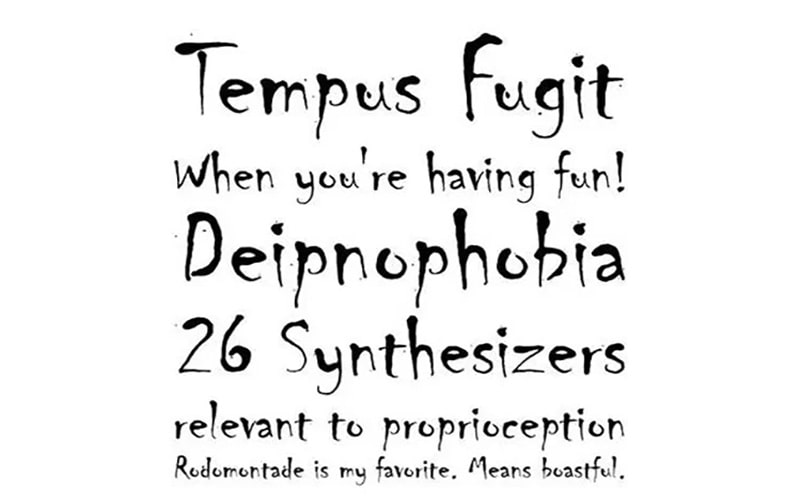
Salt Life Font is a great fancy, logo, and display typeface. It is actually an American-based clothing brand that deals in water-related sports clothes like fishing and surfing.
A British font designer Andrew Smith took charge of creating this font for the first time in 2000. This stunning font consists of stylish and influential characters.
Due to its stylish and effective look, you can create movie posters, print in the fabric industry, print cards, special quotes, t-shirt printing, branding, logos, and many other places.
You can use this gorgeous font for advertisement projects and unofficial logos.  It can also be used for documentation, invoices, and other office work.
Salt Life Font
Font Name:Salt Life Font
Style:Fancy, Logo, Display, Typeface
Font Designer:Andrew Smith
It supports 56 multiple languages including Ladin, Swahili, and Turkmen. The most cheerful font has come with only a regular style that includes “ Salt Life Regular Font”.
This fantastic font is the same as Chiller Font. So this font is perfect for designing logos for your official websites. It gives an attractive and stylish look to your designs.
This font comes with 399 different characters including uppercase, lowercase, numbers, and some special characters as well. Let’s take a look at its texture.